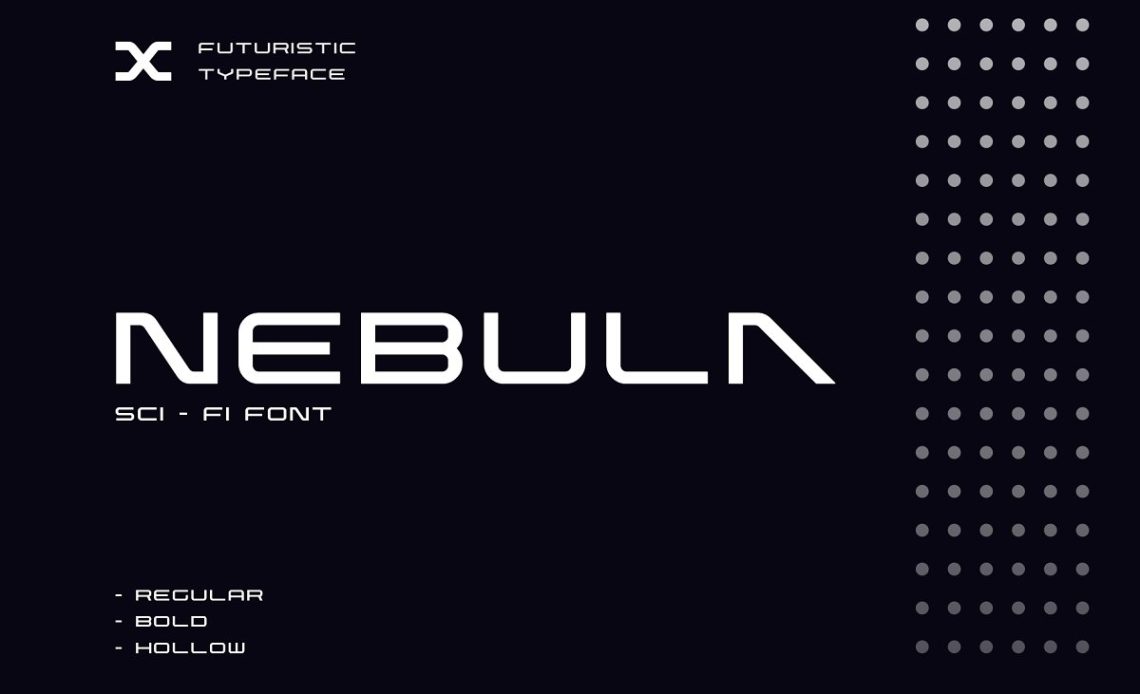
Introducing the futuristic font that will take your designs to the next level, Nebula Font. Created by Fadiel Muhammad, this sans serif typeface is the best font for modern UI. Inspired by science fiction movies and books, this font will give your designs a modern and elegant look with its minimalistic style and outline features.
Whether you are creating movie titles, posters, logos, labels, or web fonts, Nebula is the perfect choice for any modern purpose. With its alternate characters, you can create unique and eye-catching designs that stand out from the crowd. You can easily find the guide to use these characters in the note file.
Nebula comes in three styles - Regular, Bold, and Outline - which are available in OTF, TTF, and WOFF formats. This means you can use it on any platform without any issues. Its versatility and adaptability make it a must-have font in your collection.
With its modern look and feel, Nebula font is perfect for businesses, agencies, and designers who want to create designs that leave a lasting impression. It's a great choice for those who want to stay ahead of the curve in the constantly evolving world of design.